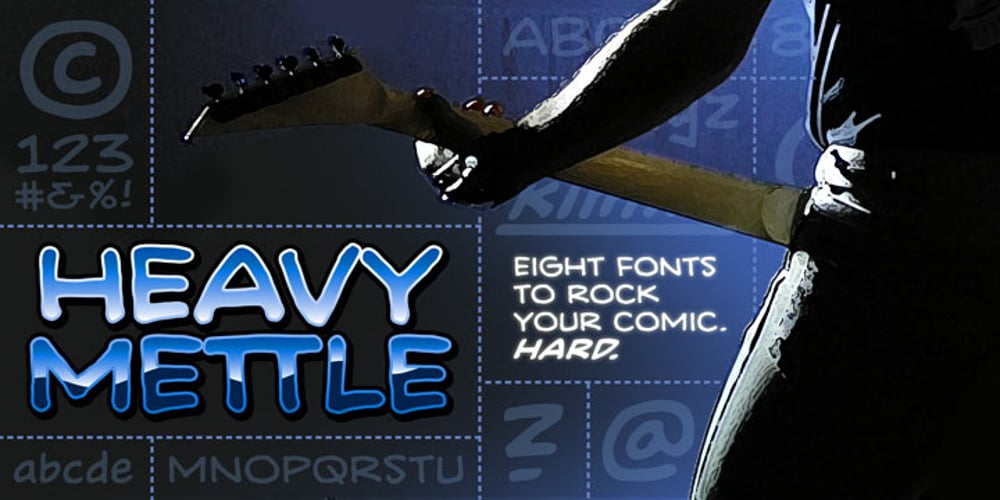
Heavy Mettle
Heavy Mettle font
Heavy Mettle Font Family was designed by Nate Piekos and published by Blambot. Heavy Mettle contains 11 styles and family package options. Heavy Mettle is a family of eight comic book dialogue fonts designed to rock your comic. Hard. European characters abound, as well as autoligatures in the Opentype versions.